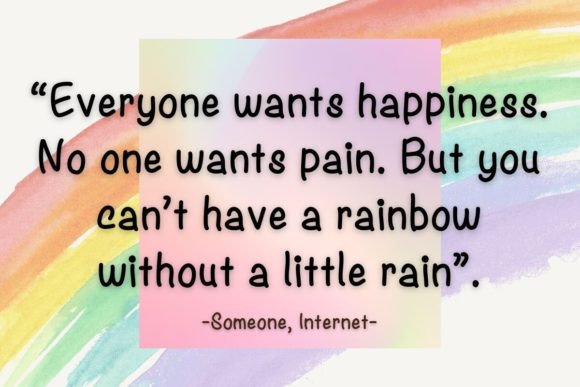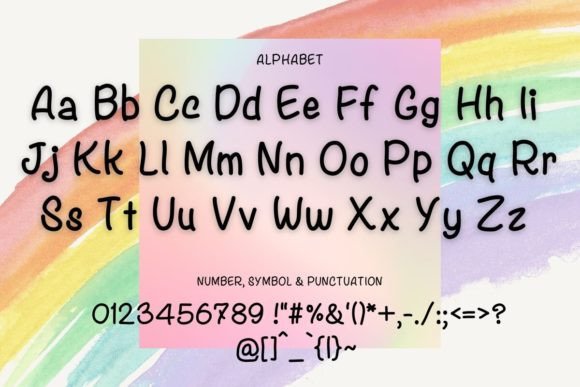
Unleash the Laughter: Discover the Delightful Giggle Font
I’ll never forget the time I was working on a project for a children’s birthday party invitation. I had the design concept all figured out, but I just couldn’t find the right font to bring it all together. The client wanted something fun, playful, and eye-catching. That’s when I stumbled upon the Giggle Font. It was like a breath of fresh air – vibrant, amusing, and robust, with a radiant spark that instantly elevated my design.
As a designer, I’m always on the lookout for fonts that can add a unique touch to my projects. Here’s what I think about Giggle:
- ✨ Unique Aesthetic: Giggle has a one-of-a-kind charm that’s hard to find in other fonts. Its playful curves and lines make it perfect for designs that need a dash of fun.
- ✅ Versatility: This font is incredibly versatile. I’ve used it for everything from children’s party invitations to social media graphics, and it always seems to fit right in.
- 💡 OpenType Features: Giggle comes with a range of OpenType features, including stylistic alternates and glyphs, which give you plenty of creative freedom.
Of course, no font is perfect. Here are a few quirks to keep in mind:
- 🤔 Legibility at Small Sizes: While Giggle is stunning at larger sizes, it can become a bit tricky to read at smaller sizes. Keep this in mind when choosing font sizes for your design.
- ⚠️ Limited Serif Options: If you’re looking for a font with a range of serif options, Giggle might not be the best choice. However, its sans-serif design does give it a clean and modern look.
Rumor has it that the creator of Giggle was inspired by the joy of childhood laughter. They wanted to bottle up that carefree feeling and put it into a font that would bring a smile to people’s faces. Whether or not that’s true, it’s clear that Giggle has a special something that sets it apart from other fonts.
| Is Giggle suitable for body text? | While Giggle is stunning, it’s best used for headings and titles. Its unique aesthetic might not be ideal for longer blocks of text. |
Giggle is more than just a font – it’s a design statement. With its playful charm and robust features, it’s the perfect addition to your design toolkit. So go ahead, give Giggle a try, and watch your designs come to life with laughter and joy!